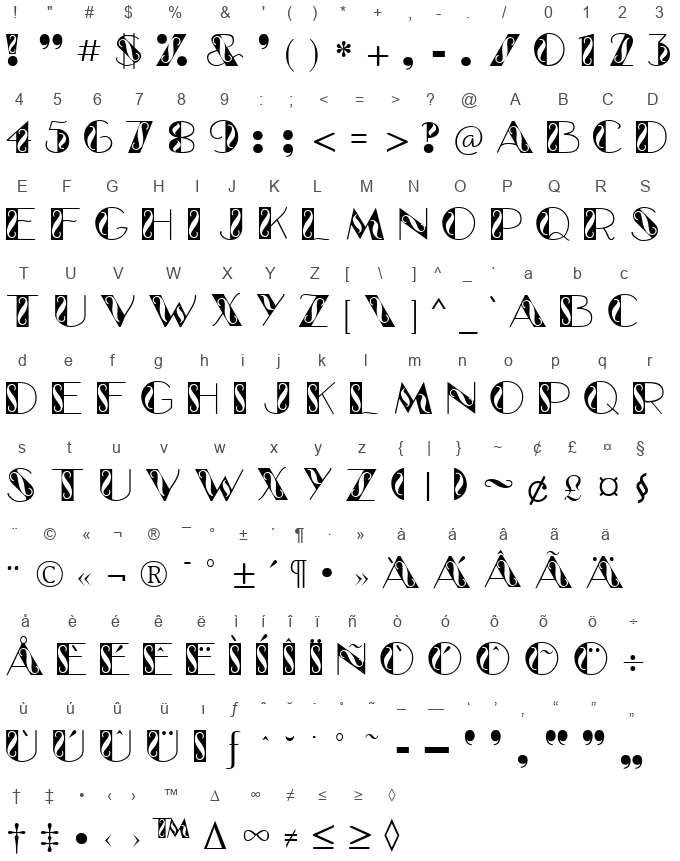
The font GlitzyCurl, envisioned and designed by the talented Robert Schenk, is an epitome of creative flair and whimsicality woven into the realm of typography. This font is a delightful representation of Schenk's ability to infuse playfulness and elegance into his typographic creations, demonstrating the versatile range of his design ethos.
At first glance, GlitzyCurl captivates the observer with its unique and dynamic character shapes. The design is characterized by its curly, ornate swashes that seem to dance whimsically around the letters. Each character in the GlitzyCurl font family proudly showcases intricate curls and flourishes, suggesting movement and a certain liveliness uncommon in more traditional typefaces. This exuberance makes it a perfect choice for projects that aim to express joy, creativity, and a touch of glamour.
The font's charm lies not only in its appearance but also in its potential applications. GlitzyCurl is particularly suited for occasions that require a touch of elegance and uniqueness. From wedding invitations and greeting cards to branding materials and book covers, its distinctive style ensures that any text stands out with an artistic flair. Despite its ornate design, GlitzyCurl maintains legibility, a testament to Robert Schenk's skill in creating a balanced yet impactful typeface.
In summary, GlitzyCurl by Robert Schenk is more than just a font; it's an artistic statement. Its combination of playful curls and sophisticated design makes it a versatile tool for designers looking to inject personality and charm into their projects. Whether used sparingly for highlights or as the main attraction, GlitzyCurl adds a spark of creativity and elegance that is hard to ignore.
GlitzyCurl